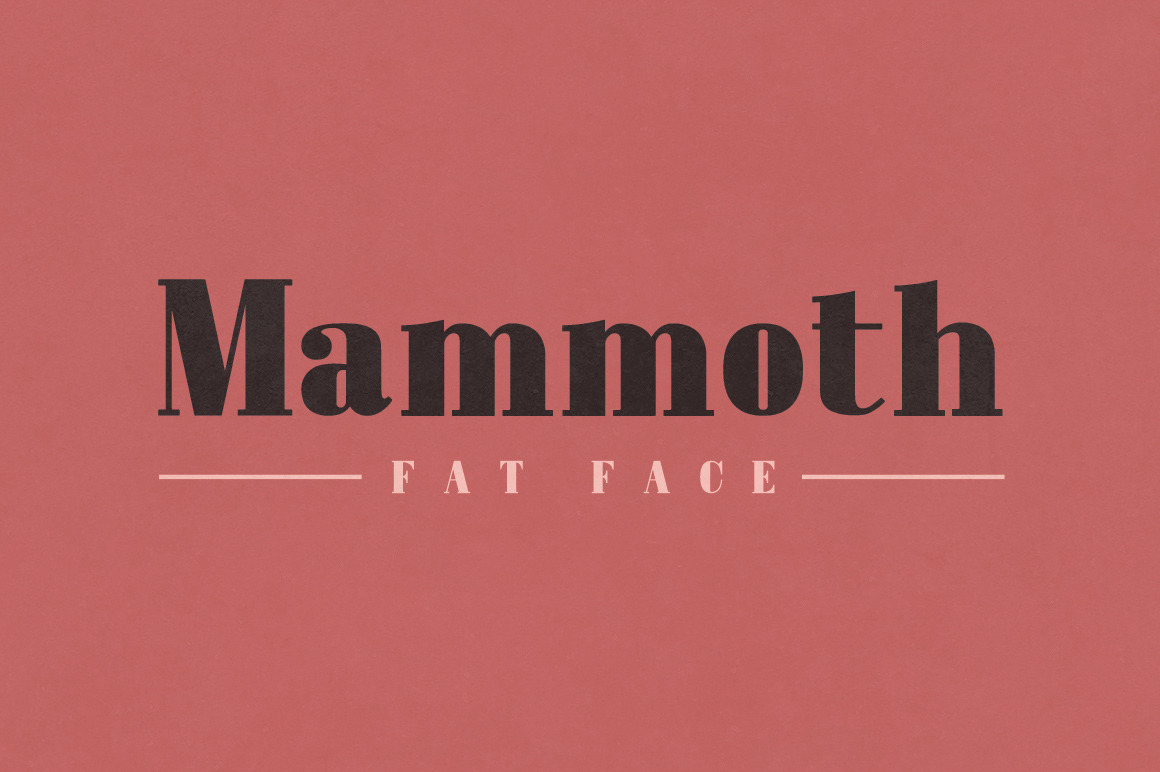
Mammoth Fat Face - Letterpress Font
Mammoth is a new Fat Face font inspired by the typography of early 18th century letterpress posters. It is an extra bold display font, perfect for use as headlines. Includes uppercase, lowercase, numbers and common symbols.
- All Uppercase Glyphs
- All Lowercase Glyphs
- All Number Glyphs
- 32 Common Symbol Glyphs